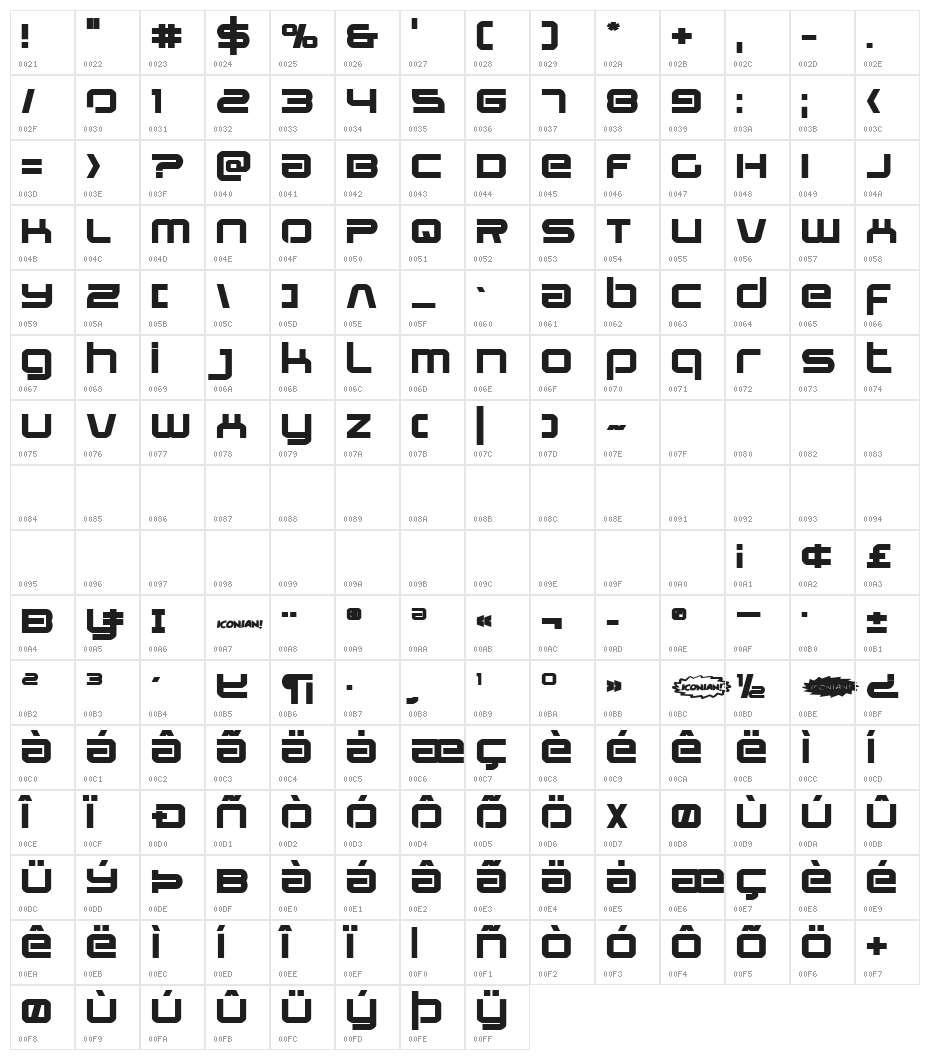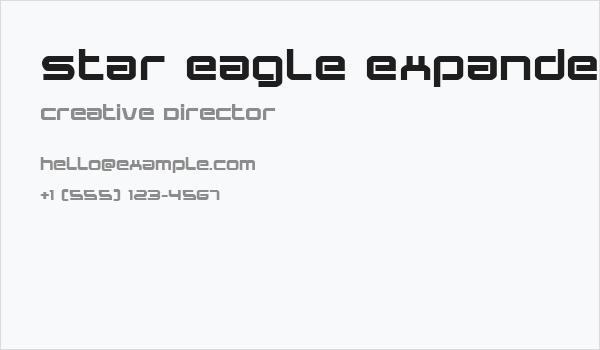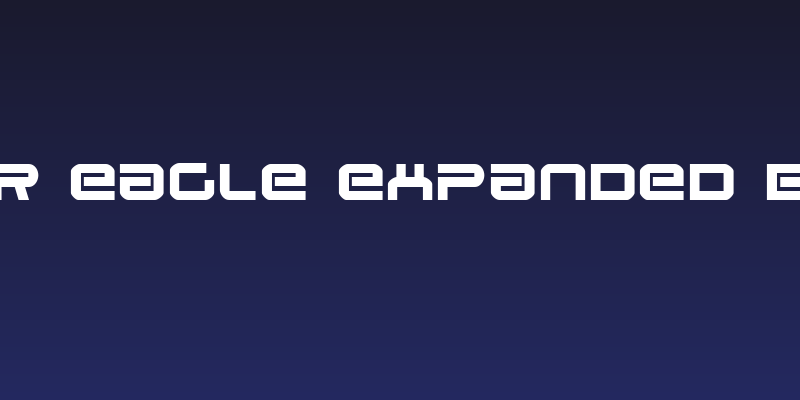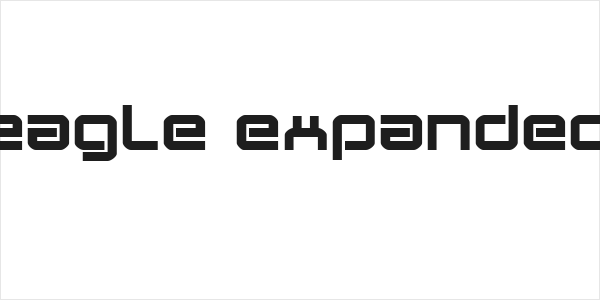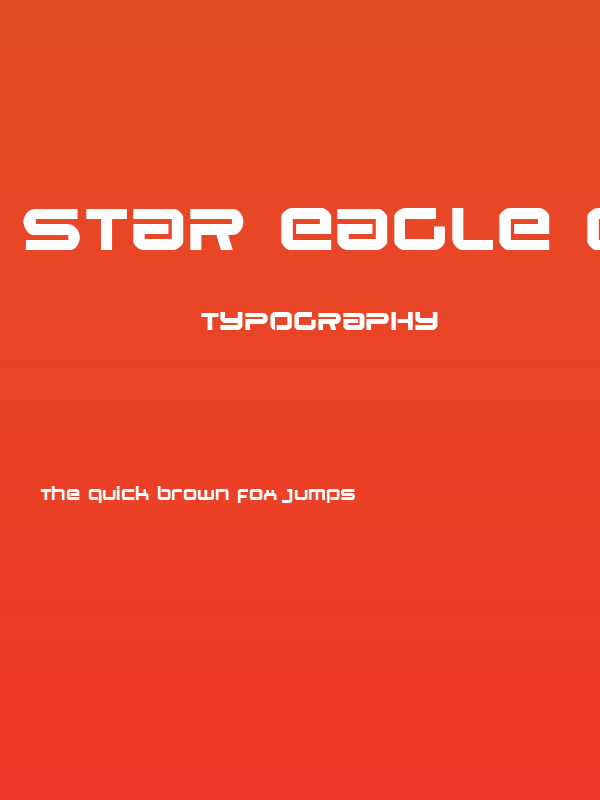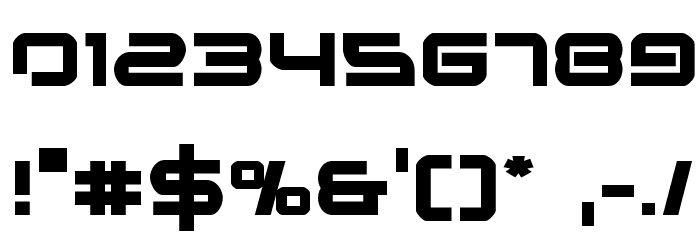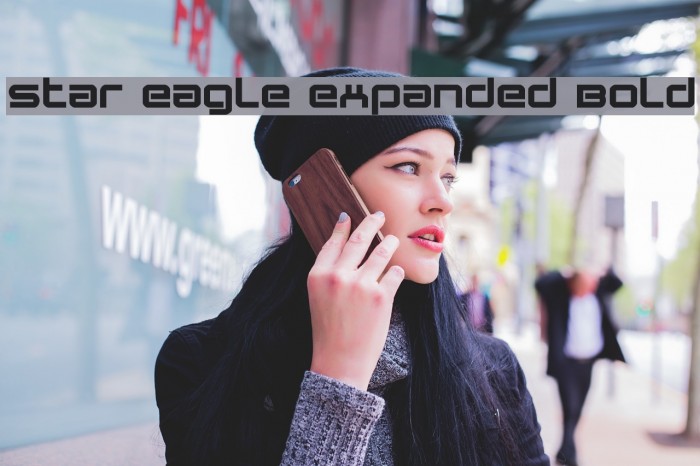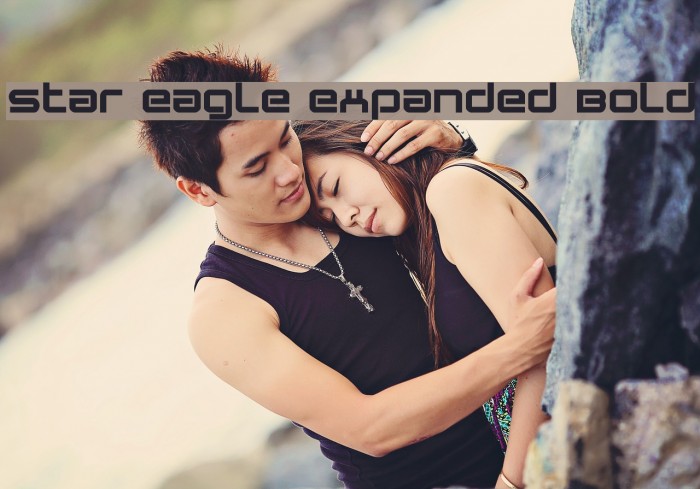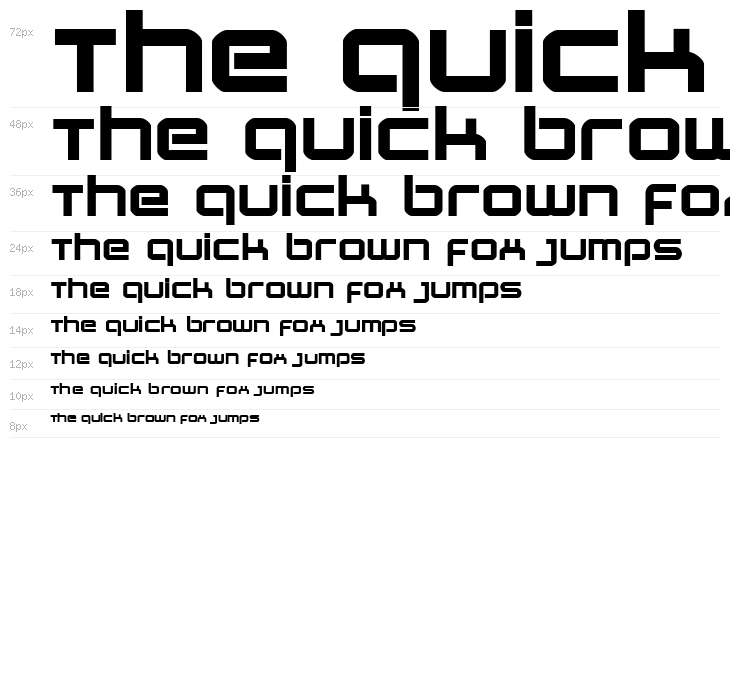
Star Eagle Expanded Bold Font
Star Eagle Expanded Bold Description
This font features a bold and expanded style with a futuristic and geometric design. The characters are constructed with a blocky, angular appearance, giving it a strong and impactful presence. The uppercase and lowercase letters maintain a consistent width, contributing to its uniformity. The numerals are similarly styled, ensuring cohesion across all characters. The special characters are distinct yet harmonize well with the overall design, making it suitable for attention-grabbing applications.
| Proposed Projects | Ideal for sci-fi themed projects, technology branding, video game titles, and modern posters. |